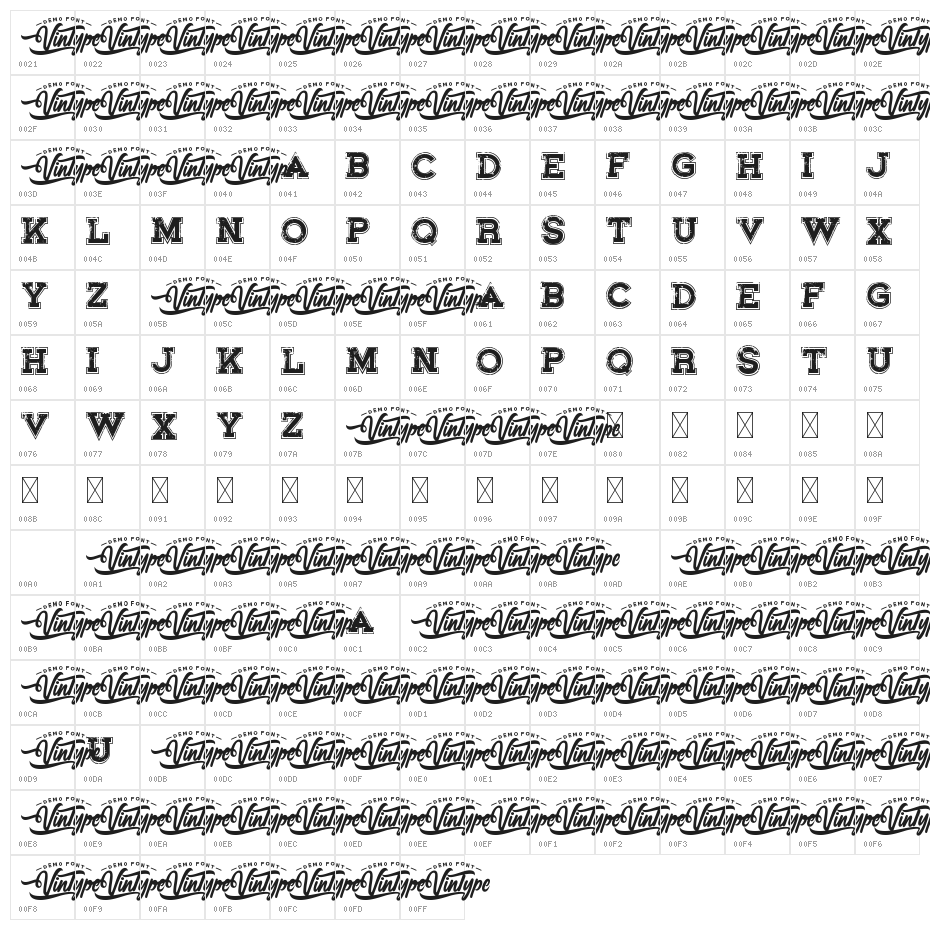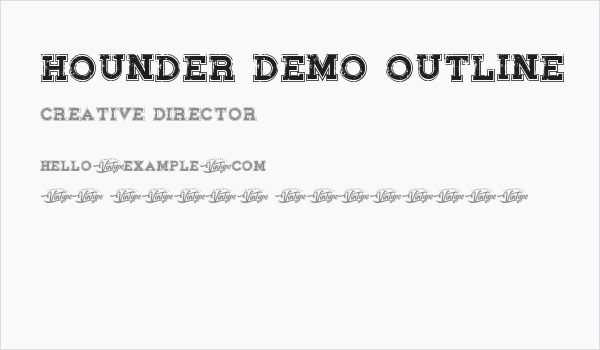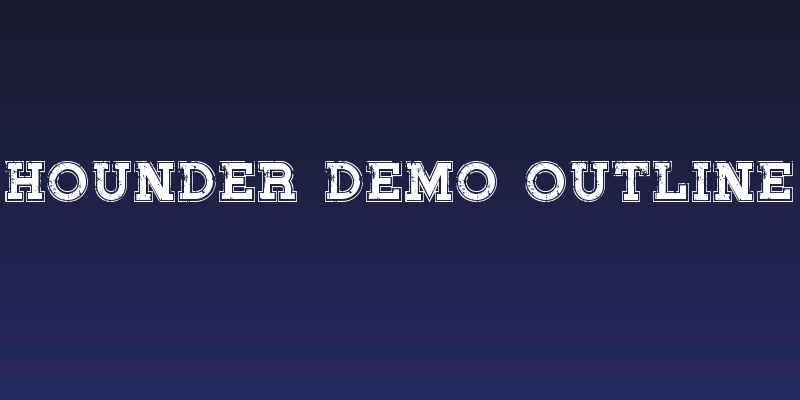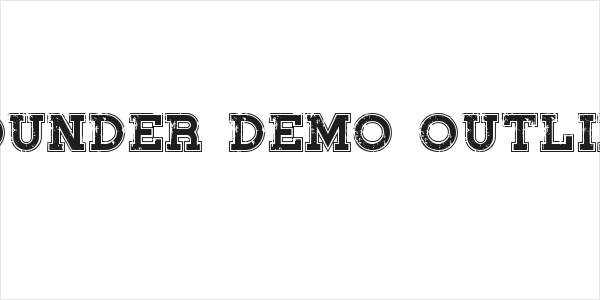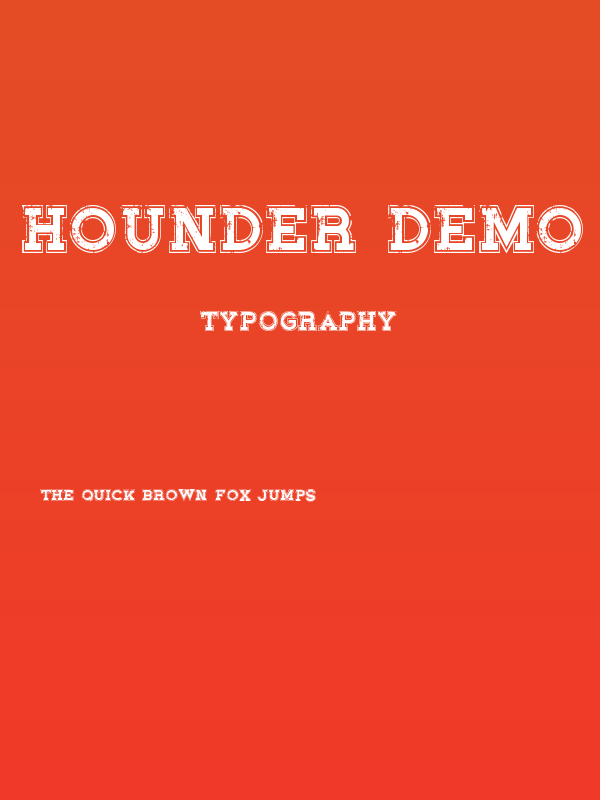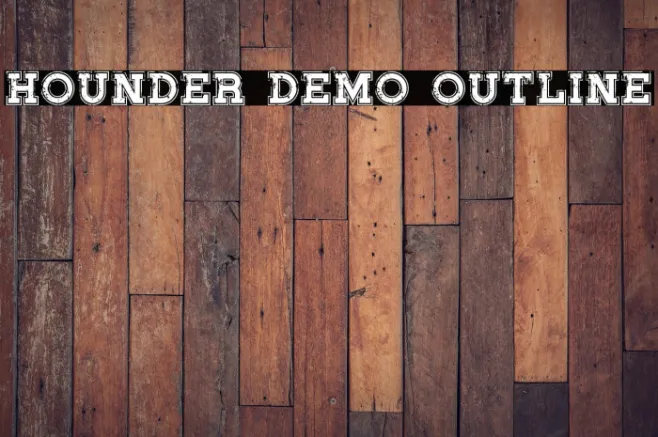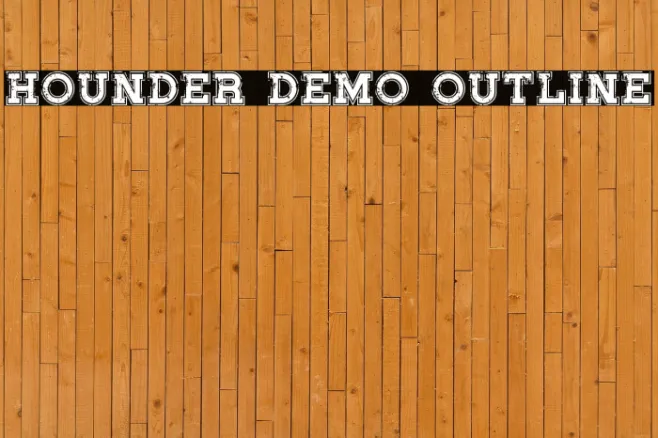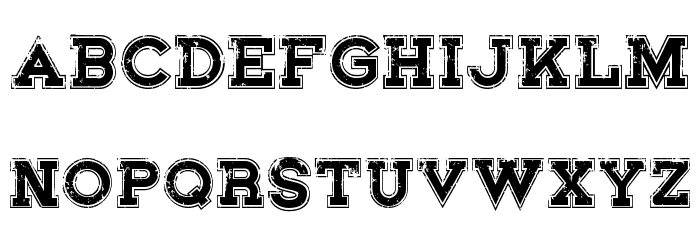
Hounder Demo Outline Font
Hounder Demo Outline Description
This font features a bold, decorative style with an outline effect that gives it a vintage, distressed appearance. The uppercase letters are prominent and eye-catching, making it ideal for display purposes. The font has a strong presence with its thick strokes and outlined design, which adds a layer of depth and texture. The characters are evenly spaced, ensuring readability while maintaining a unique aesthetic. This style is reminiscent of old signage or posters, offering a nostalgic feel that can enhance creative projects.
| Overall Style | Vintage |
| Proposed Projects | Ideal for vintage-themed posters, logos, branding, and signage that require a bold and distinctive look. |